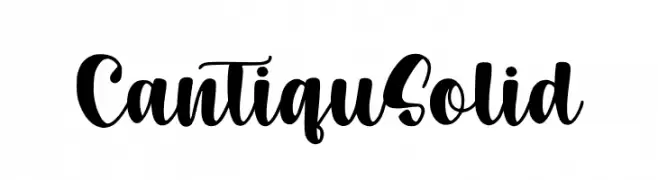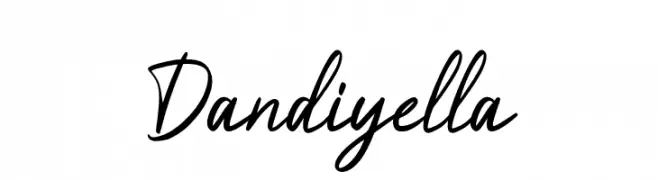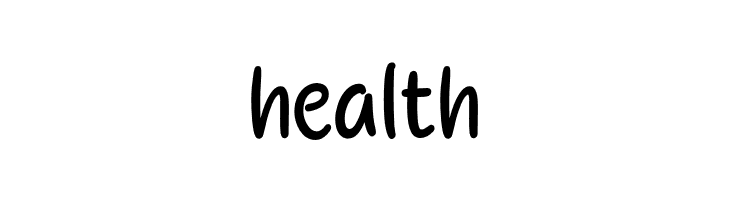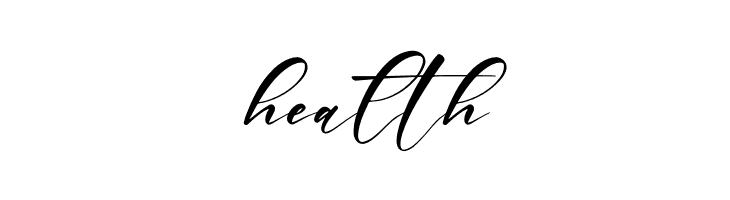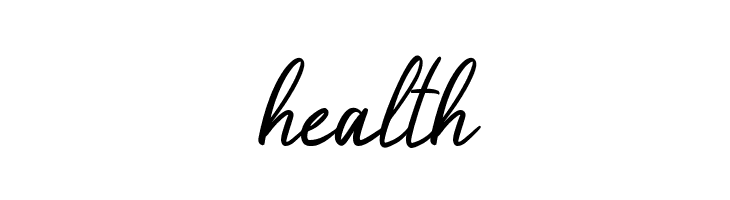
A sophisticated, cursive script font with high contrast and elegant flow.
A lively and expressive script font with fluid, dynamic strokes.
A playful, casual handwritten font with smooth, rounded strokes.
A lively and playful handwritten font with fluid strokes and a casual vibe.
An elegant, flowing script font with a handwritten style.
A monoline script font with a smooth, flowing style and consistent line thickness.
A bold, flowing script font with elegant, connected characters.
A lively, cursive font with fluid strokes and a handwritten feel.
A lively and dynamic handwritten font with fluid, expressive strokes.
A dynamic and fluid script font with elegant, flowing letterforms.